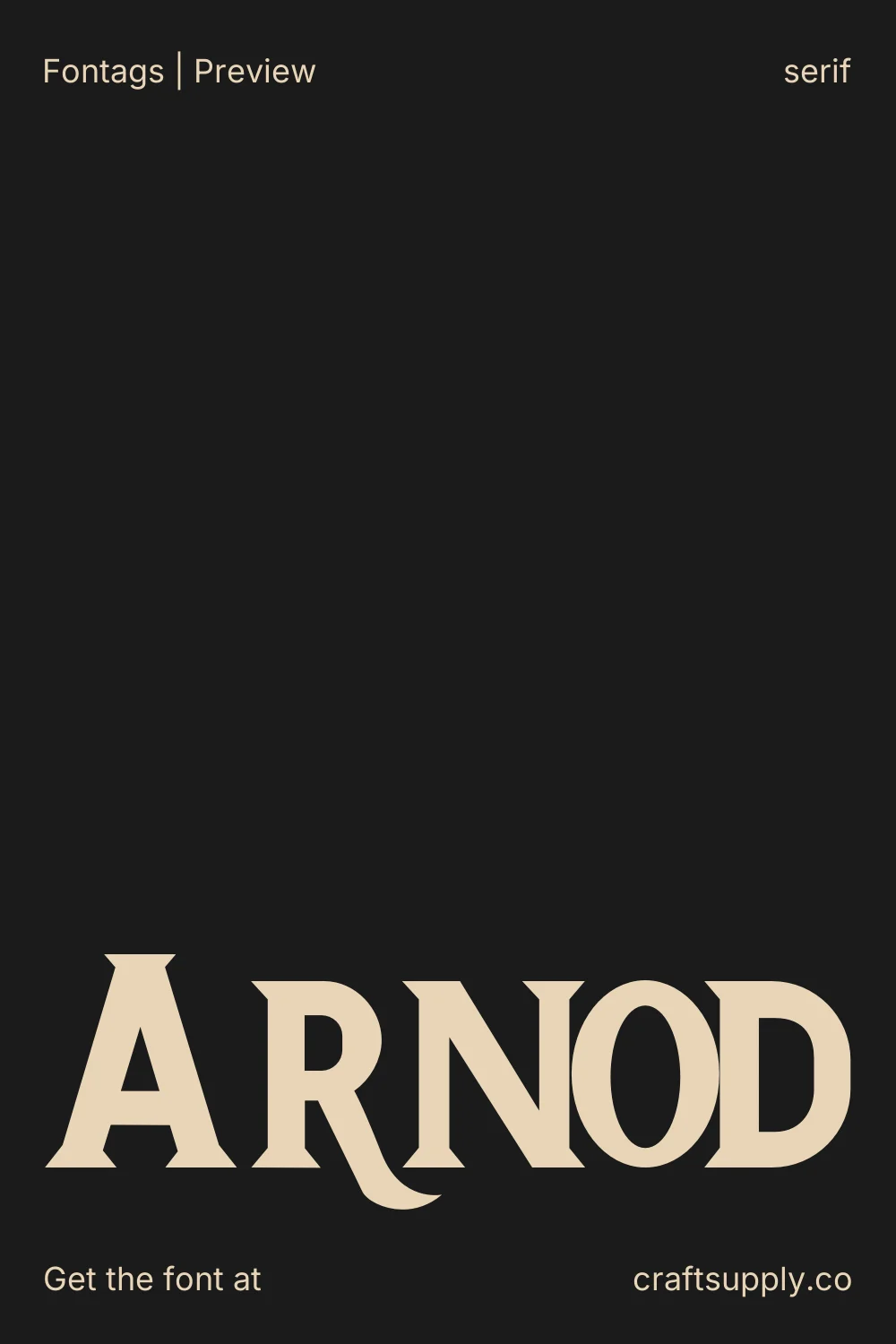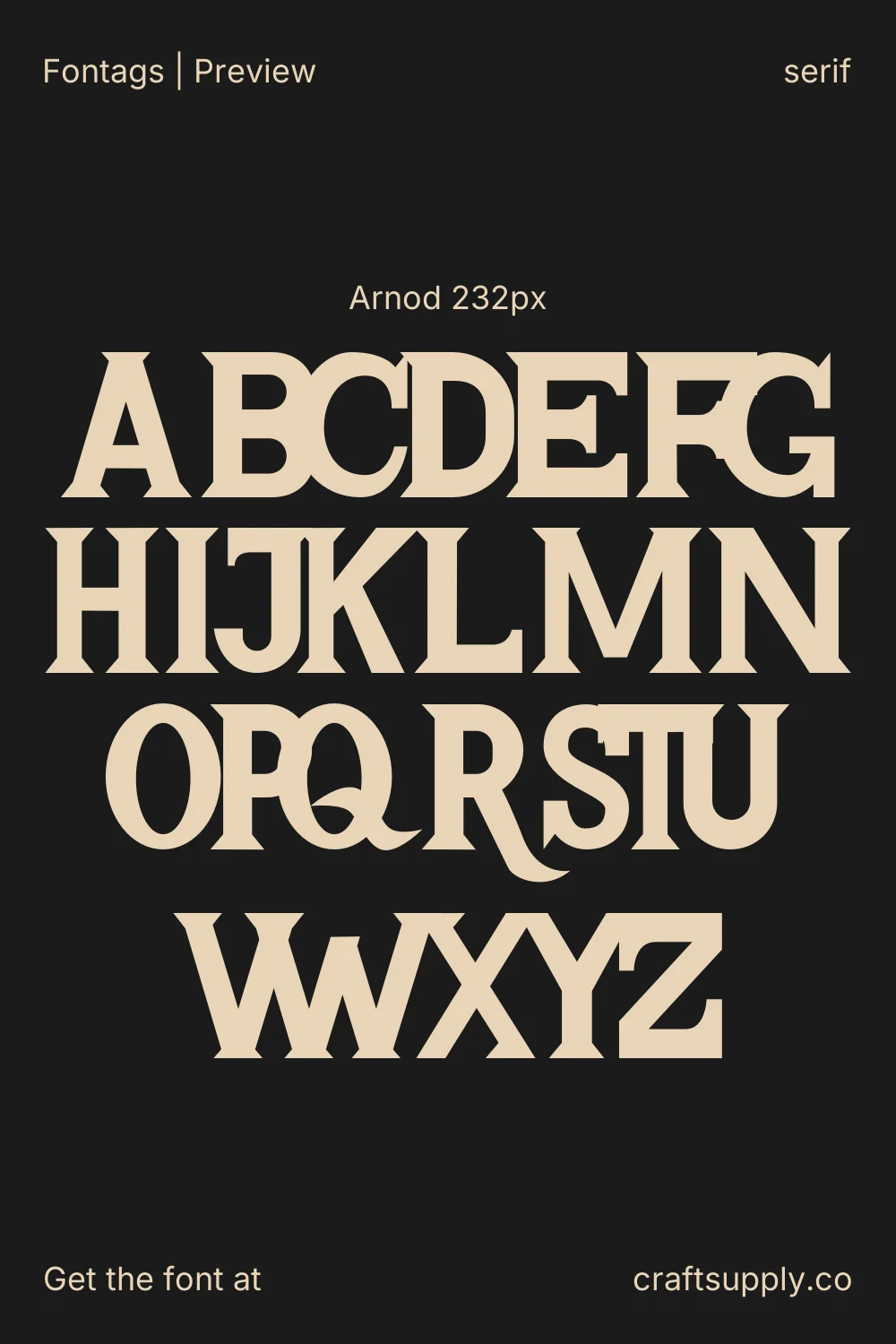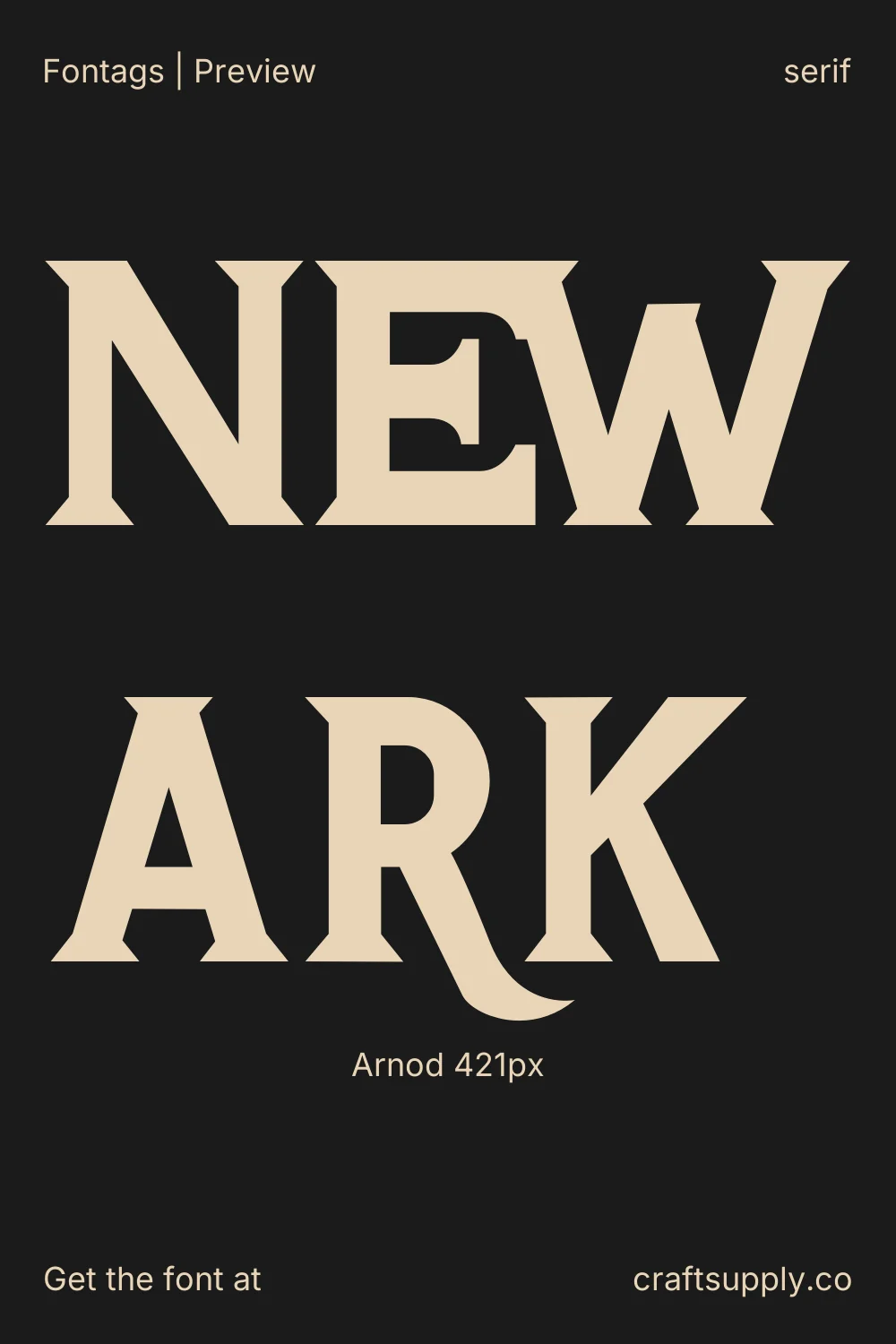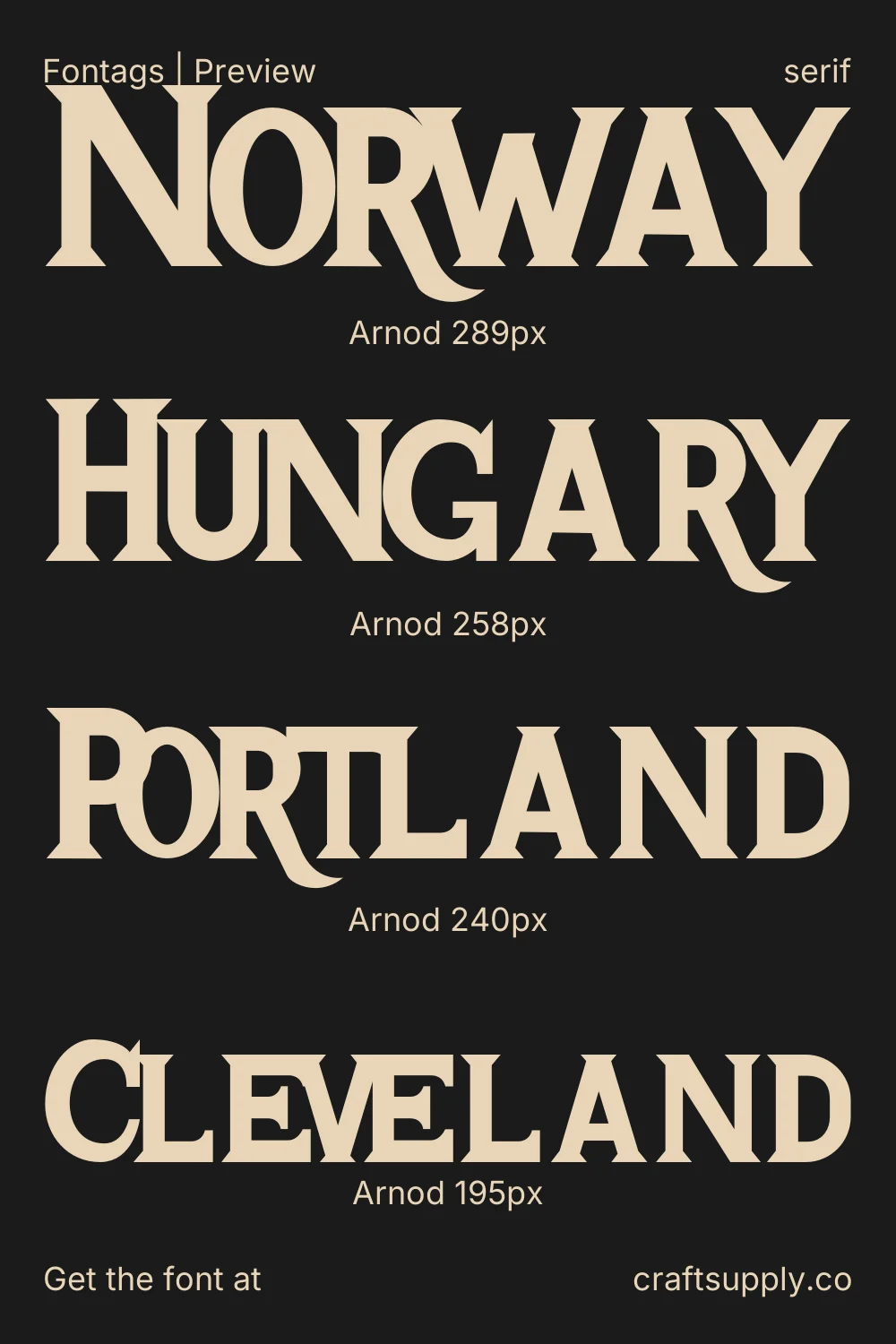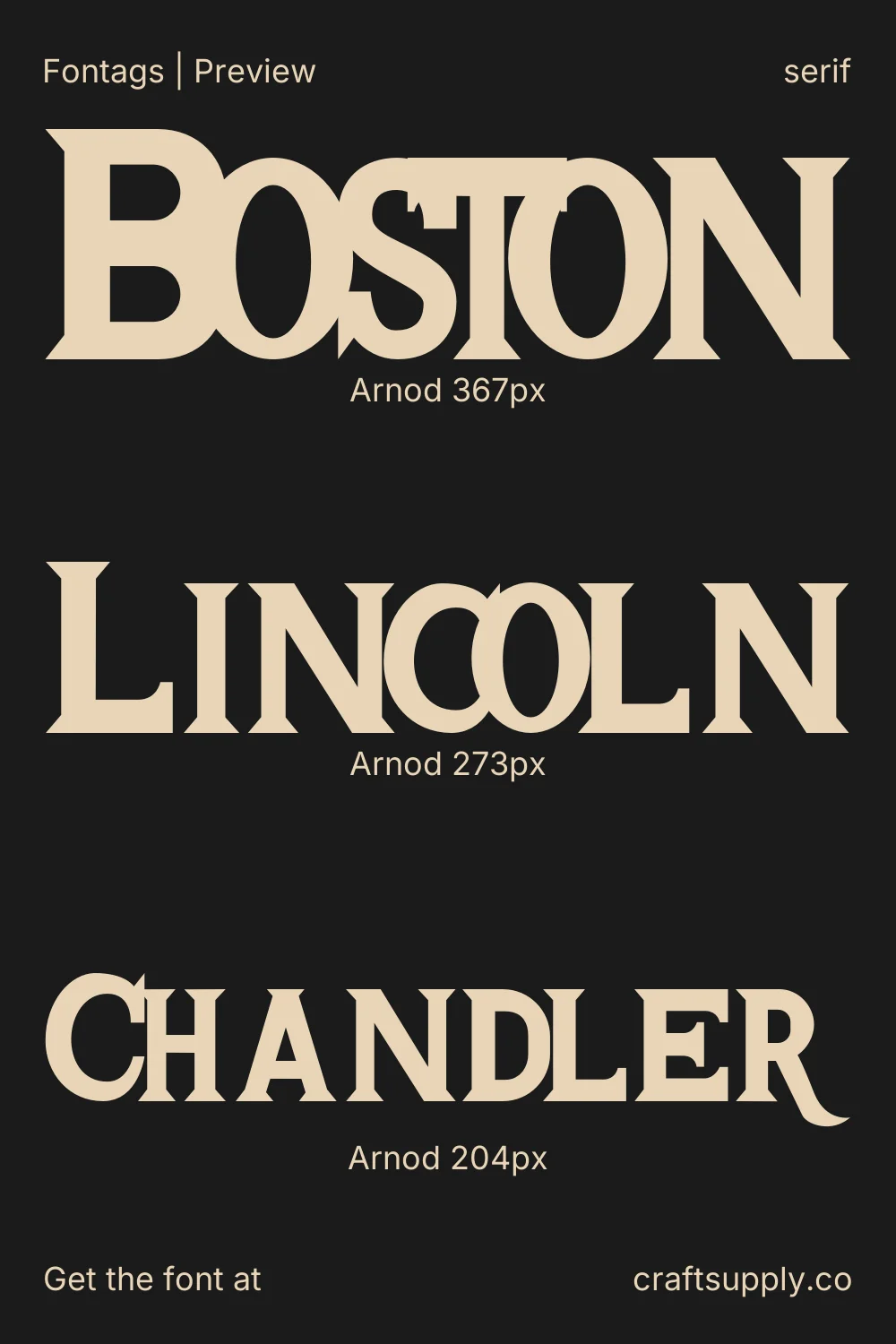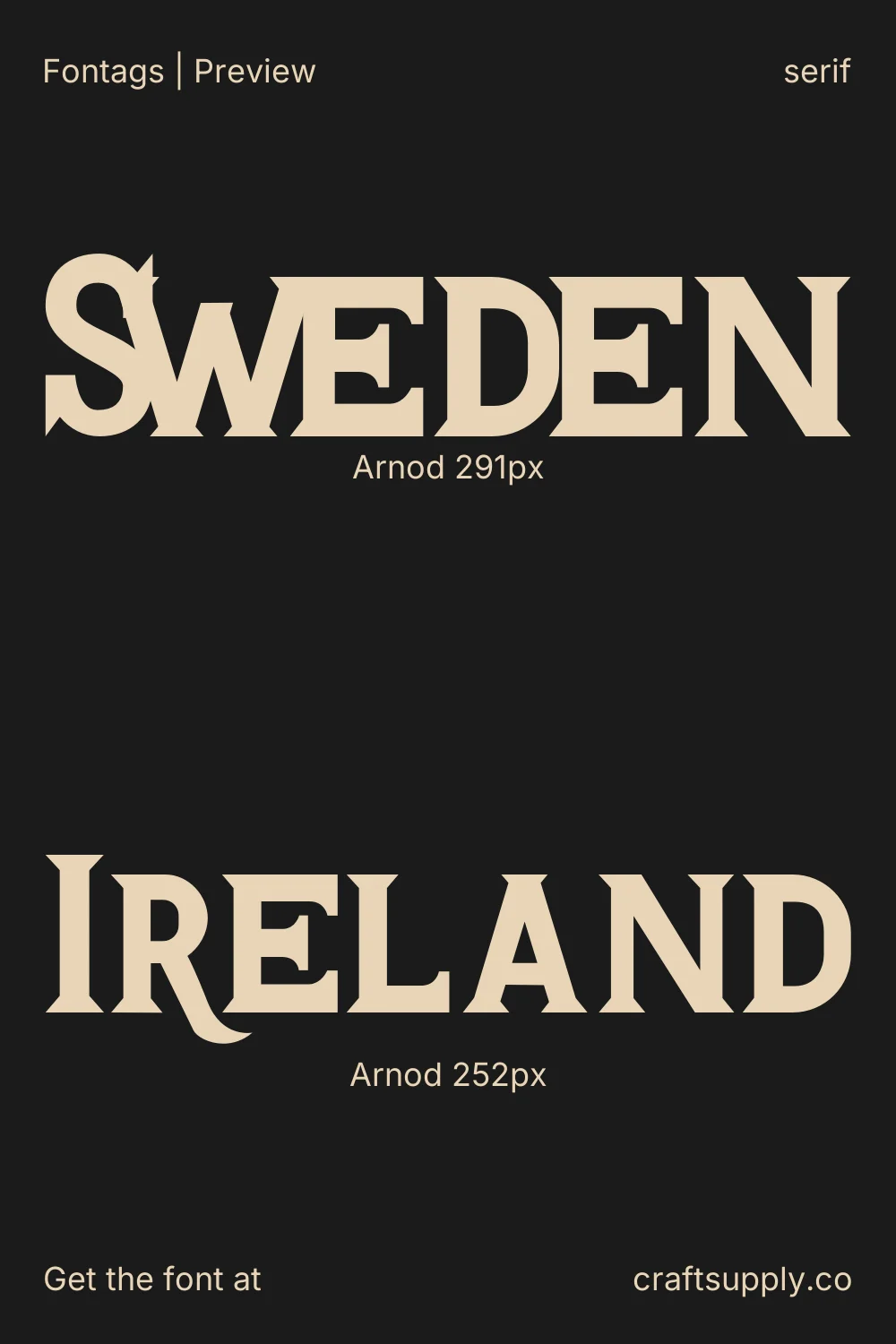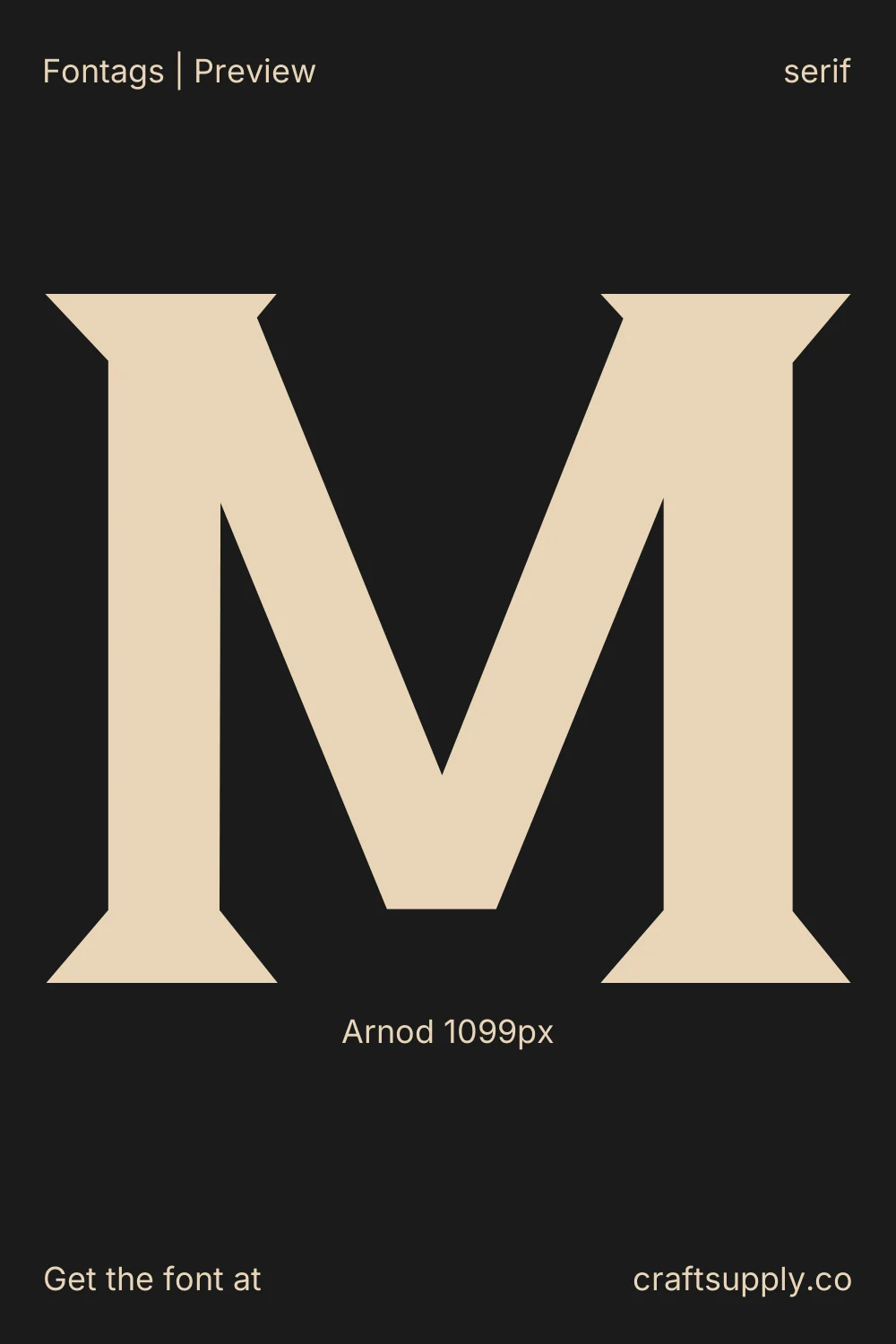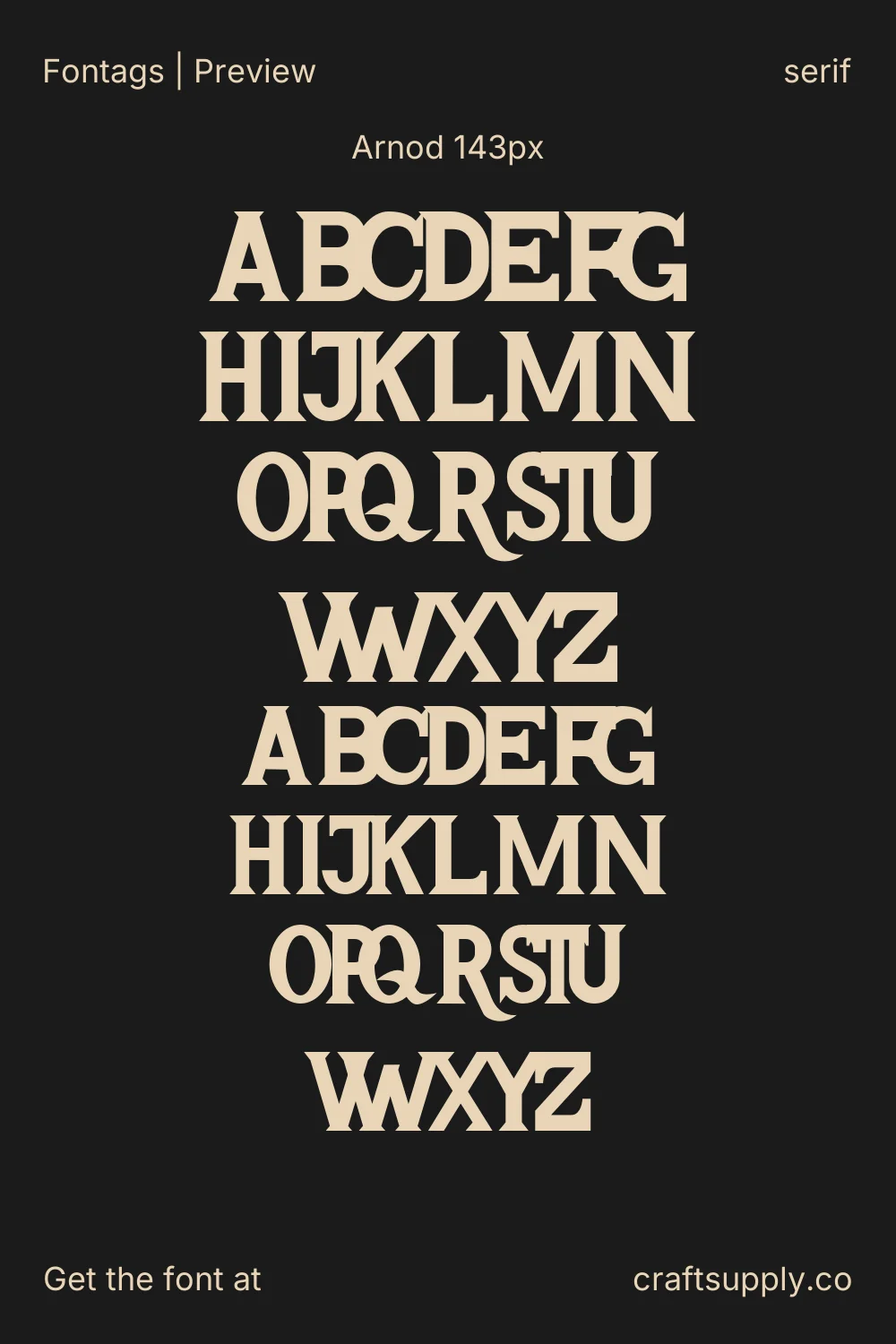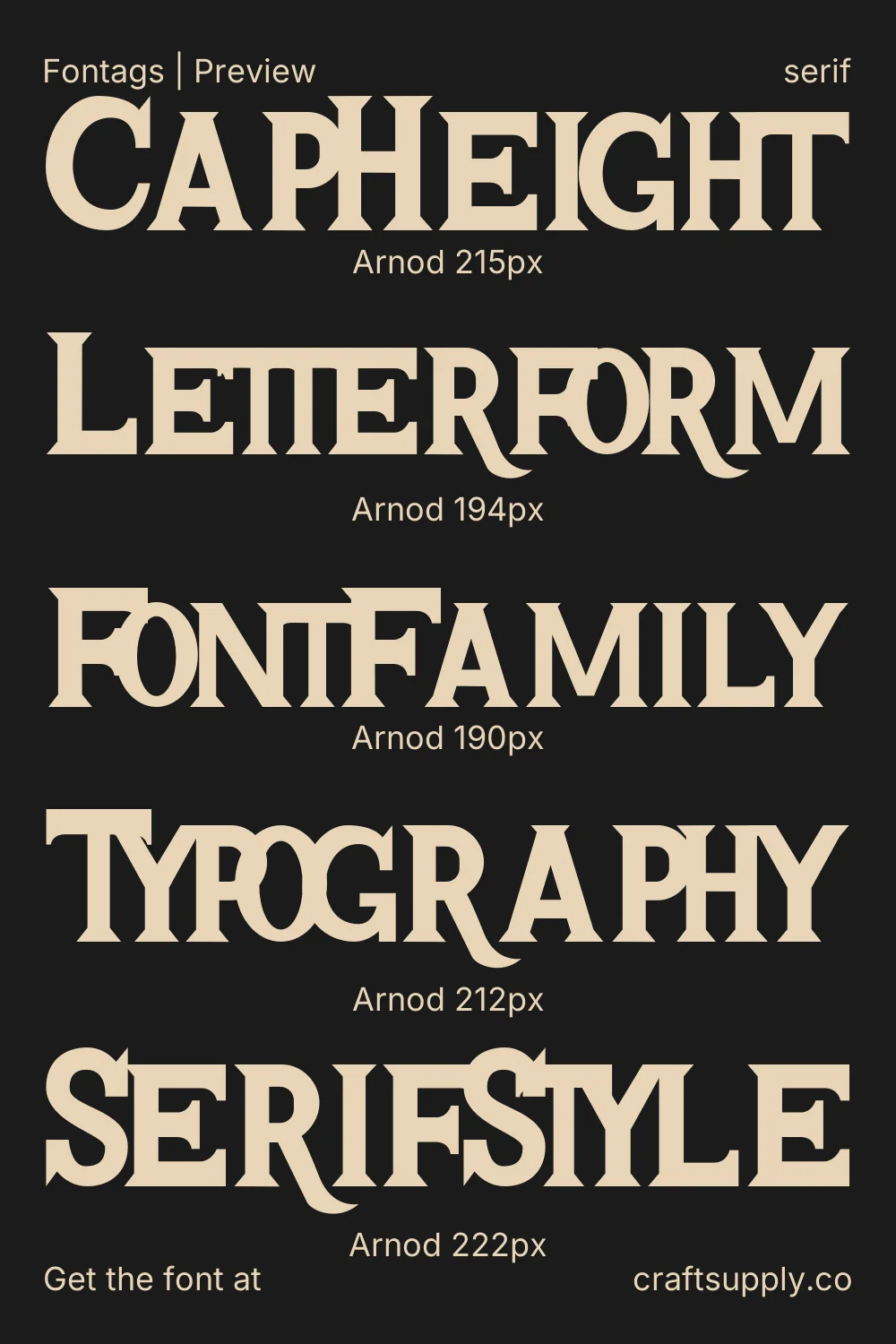
Arnod
Arnod is a bold serif typeface with an industrial, masculine character. Its robust strokes and structured forms convey authority and strength, making it ideal for powerful logos, impactful headers, and branding that demands attention.